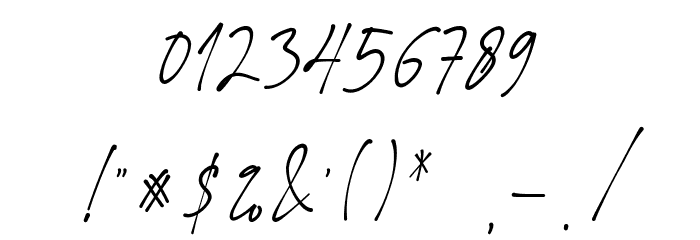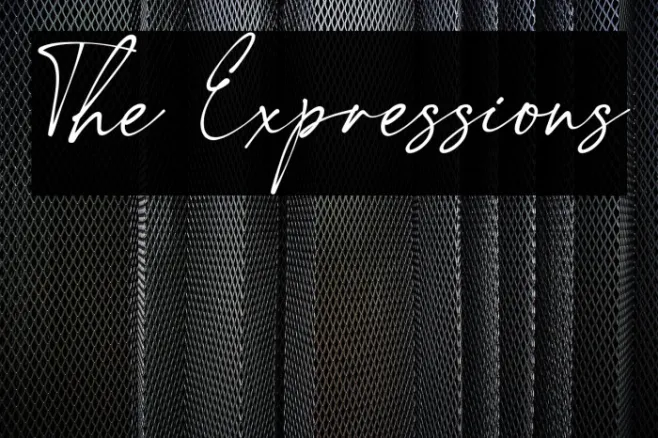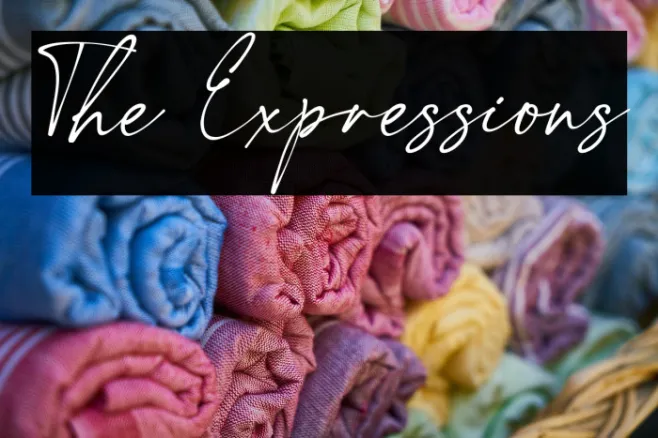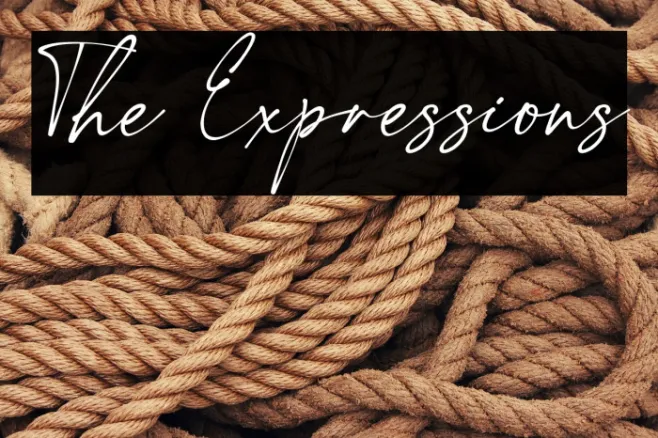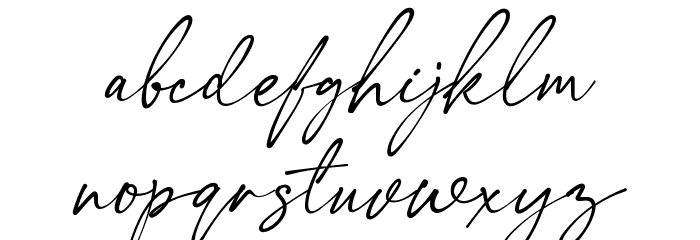
The Expressions Font
This font exudes a sense of elegance and fluidity, characterized by its cursive, handwritten style. The letters are connected in a flowing manner, with each character exhibiting a graceful curve and a slight slant to the right. The uppercase letters are distinctively larger and more ornate, while the lowercase letters maintain a consistent and harmonious appearance. The numerals are clear and legible, matching the overall aesthetic of the script. Special characters are integrated seamlessly, maintaining the font's cohesive look. The strokes are moderately thin, contributing to a delicate and sophisticated feel.
| Overall Style | Elegant, Sophisticated |
| Use Case | Logos, Invitations, Personal stationery |
| Proposed Projects | Ideal for wedding invitations, elegant branding, personal stationery, and artistic projects. |